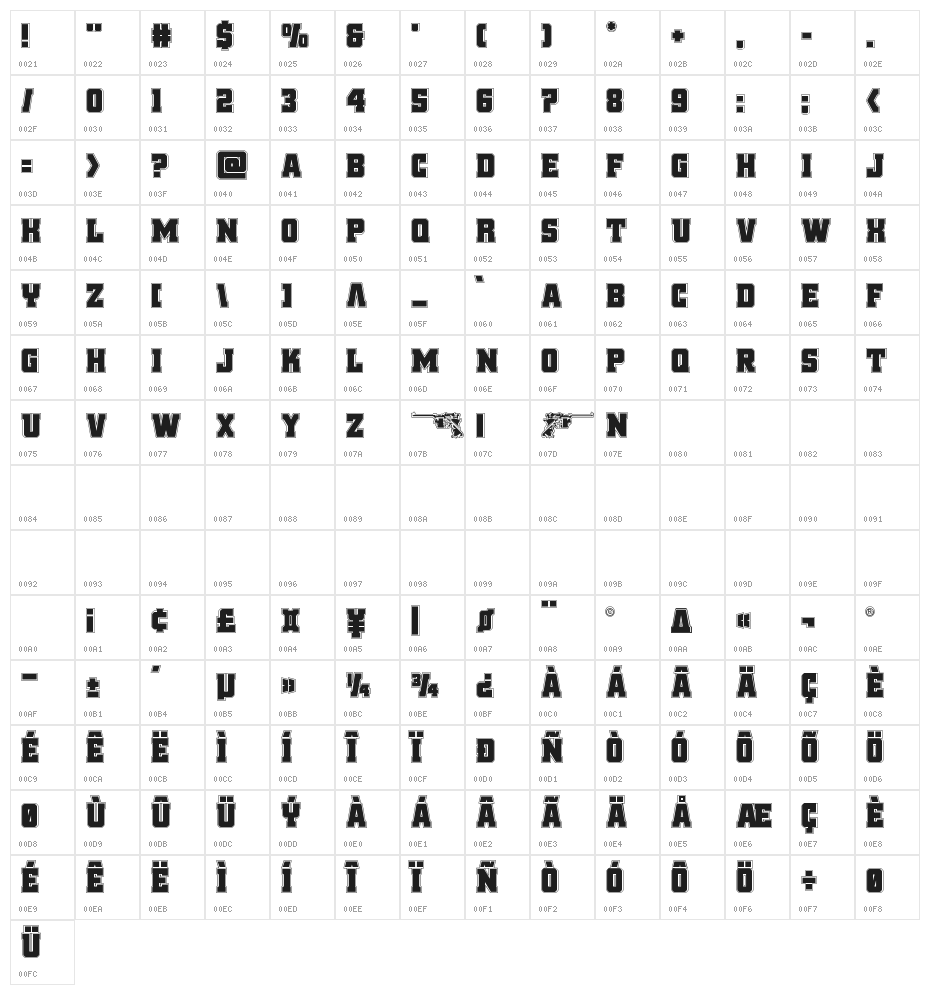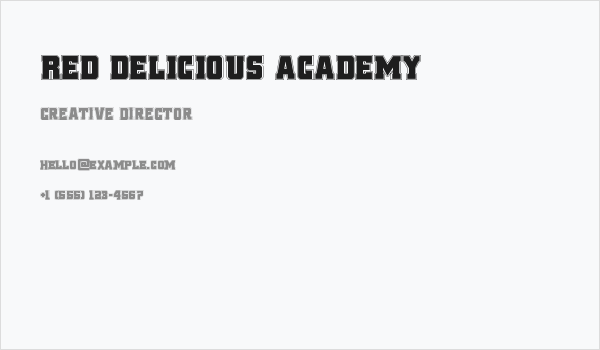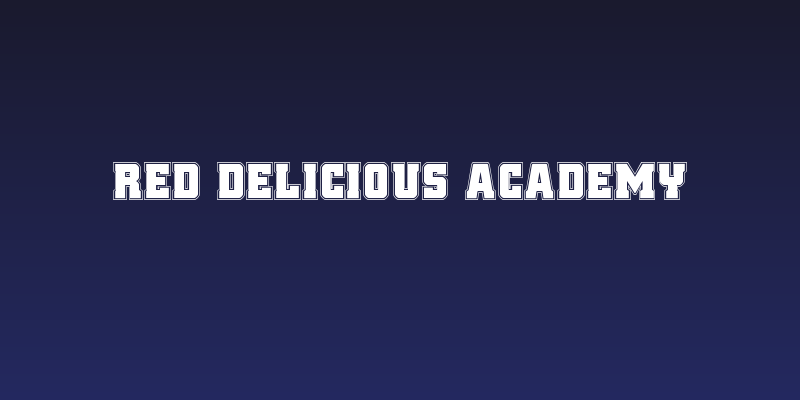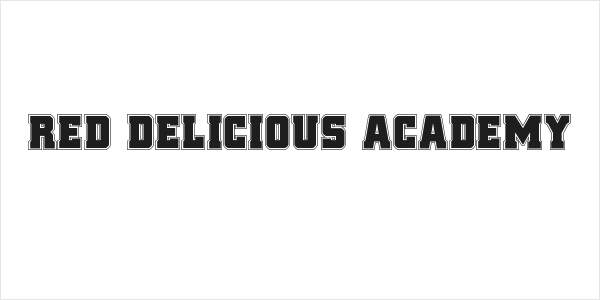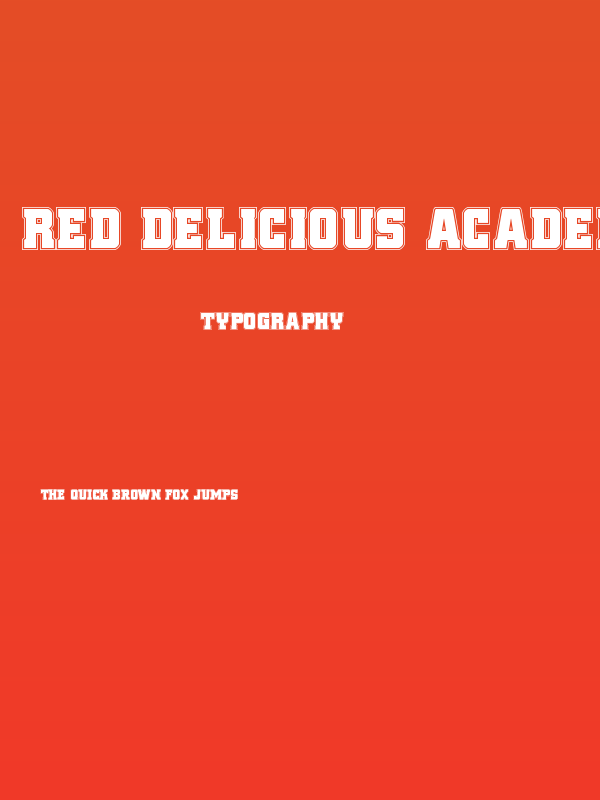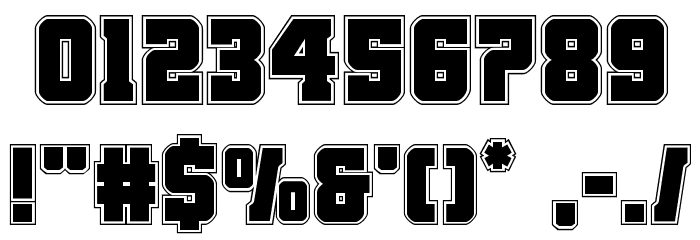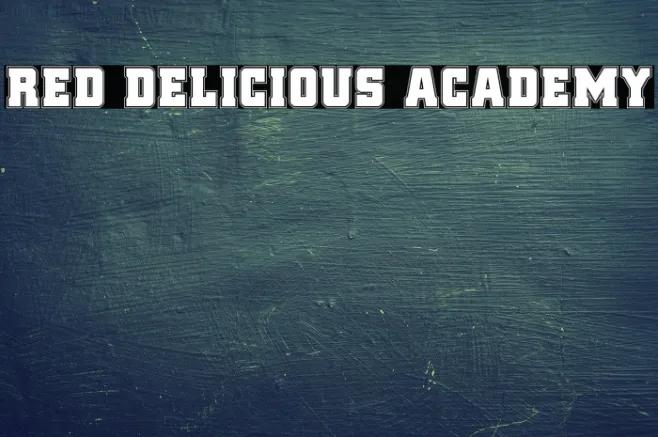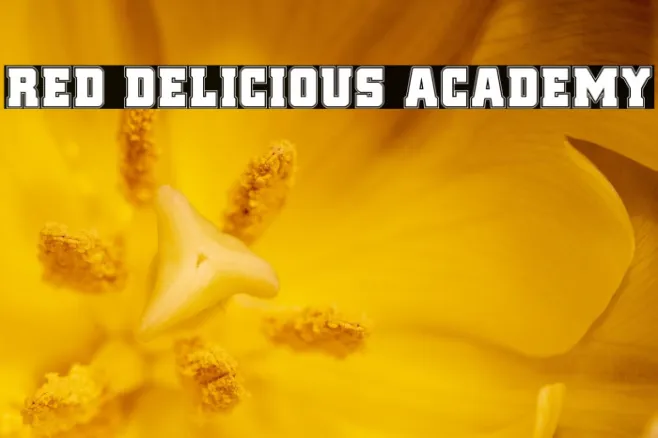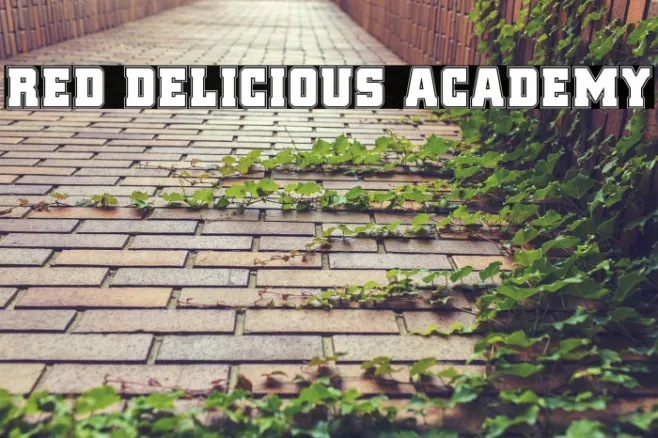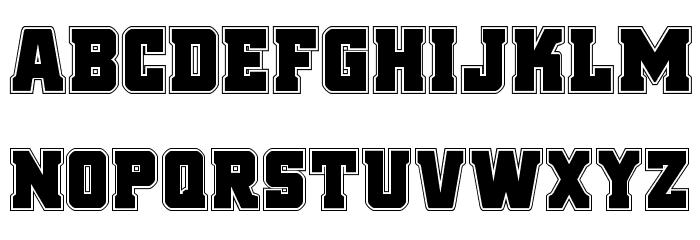
Red Delicious Academy Font
Red Delicious Academy Description
This font features bold, blocky characters with a strong, impactful presence. Each letter is outlined with a thick border, enhancing its visibility and making it ideal for attention-grabbing designs. The uppercase letters are uniform in height, while the numbers and special characters maintain the same robust style. The overall design is reminiscent of collegiate or sports-themed typography, often used to convey strength and authority. The font's boldness and distinct outline make it suitable for headlines or any context where a commanding visual is required.
| Proposed Projects | Ideal for sports team logos, event posters, school banners, and any design needing a bold, authoritative look. |